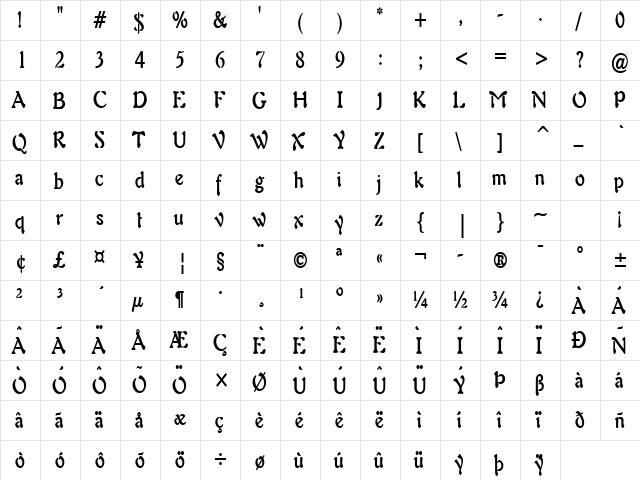
Freedom 9 Thin Bold Font Preview
Freedom 9 Thin Bold
Design Context for Freedom 9 Thin Typeface
Freedom 9 Thin is a composed and adaptable typeface that performs quietly and consistently across a wide range of design contexts. The heavy weight commands attention and anchors typographic hierarchies.
Pro Tip: Use Freedom 9 Thin in both headline and body roles to test its range before committing to a single application.